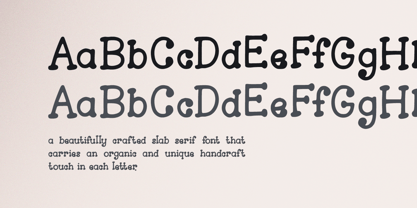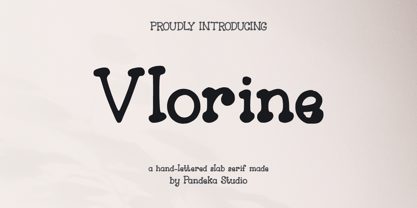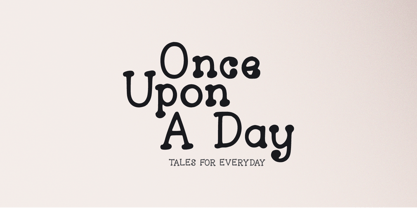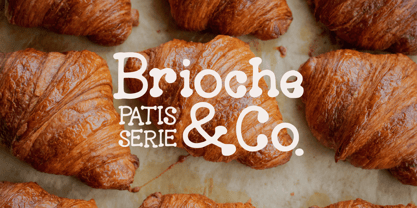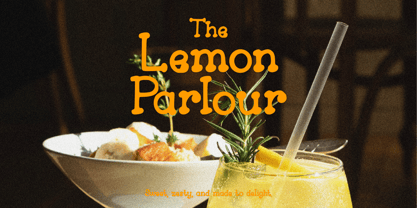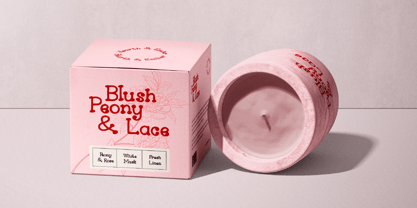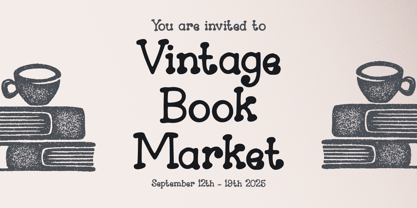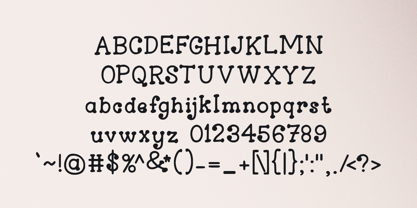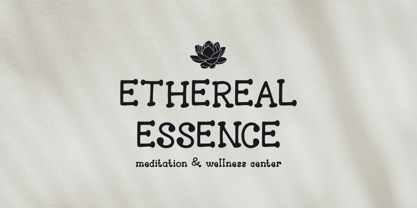
Vlorine
by Pandeka Studio
The Vlorine Font Family was designed by Sagara Nararya and published by Pandeka Studio. Vlorine contains 1 styles. More about this family
Vlorine – Vintage Hand-Lettered Serif
Vlorine is a bold slab serif with hand-lettered charm, perfect for vintage branding, rustic packaging, classic signage, editorial layouts, and logo design. Its timeless style blends elegance and character, making it a versatile choice for projects that demand a unique and nostalgic aesthetic.
• Full Character Set: Uppercase, lowercase, numbers, symbols, and punctuation
Designers: Sagara Nararya
Current Foundry: Pandeka Studio